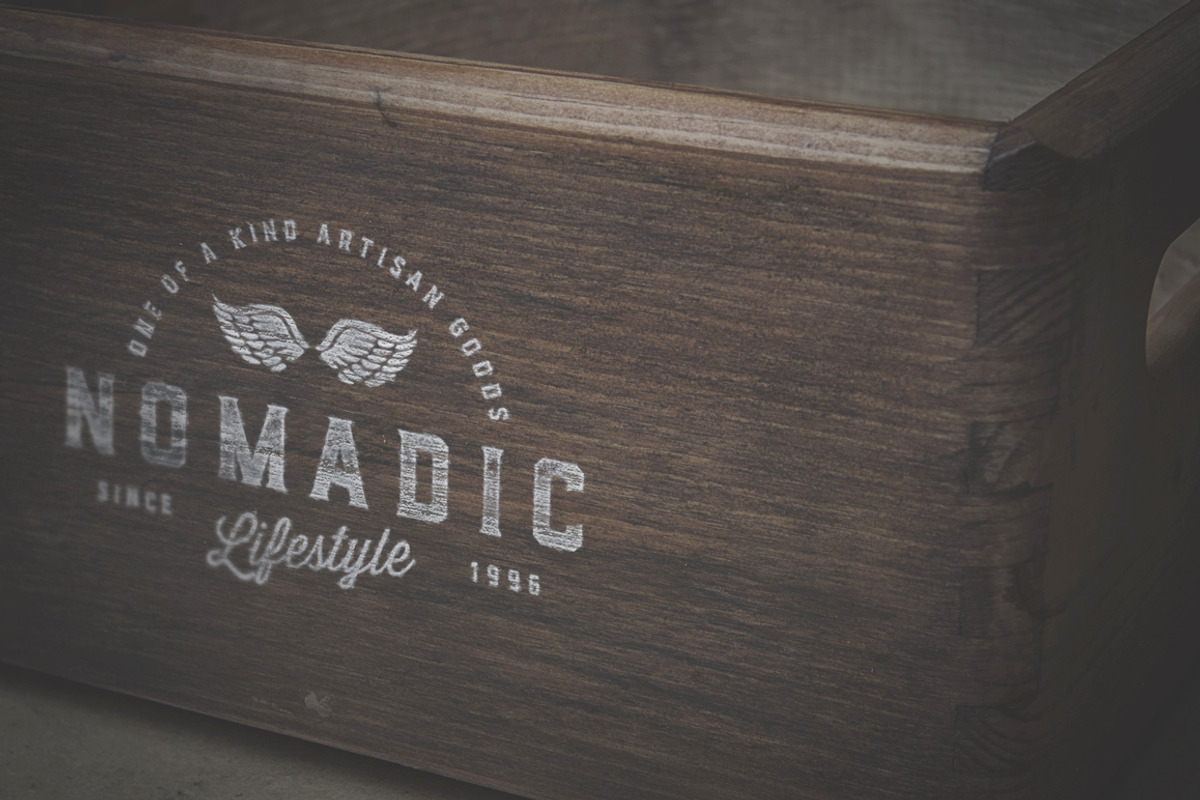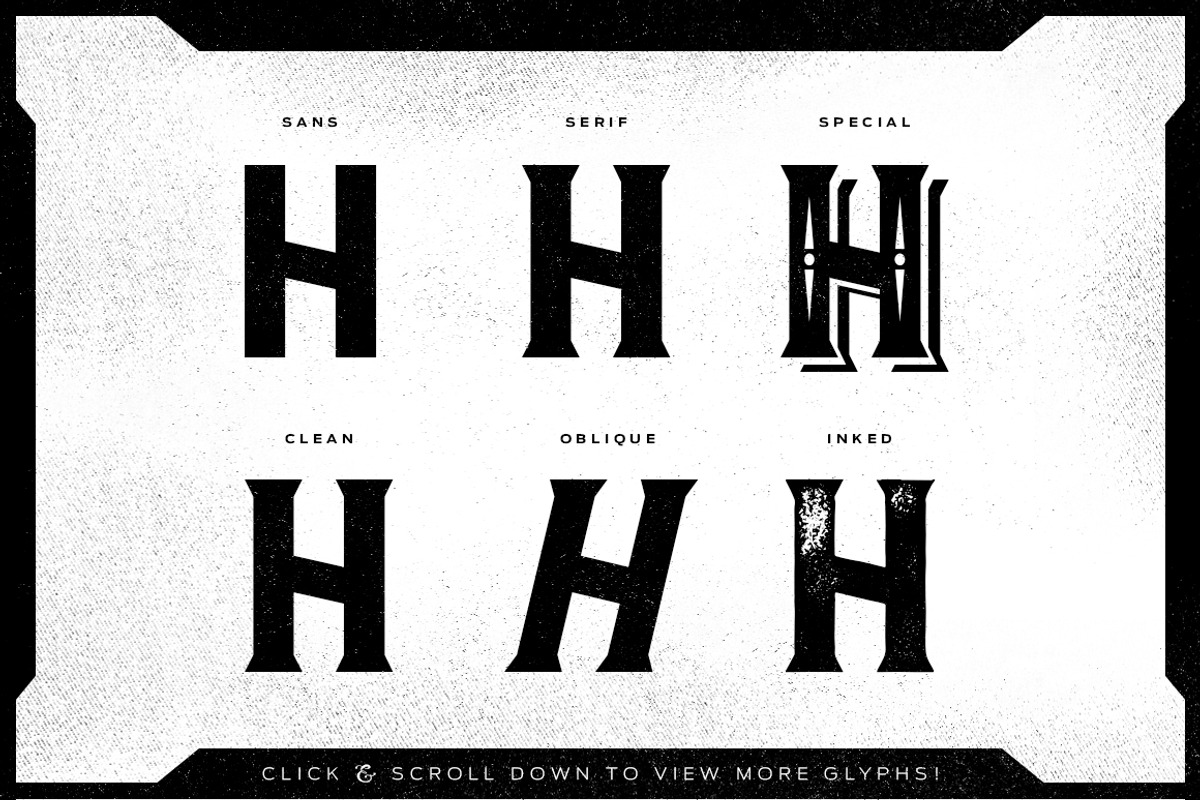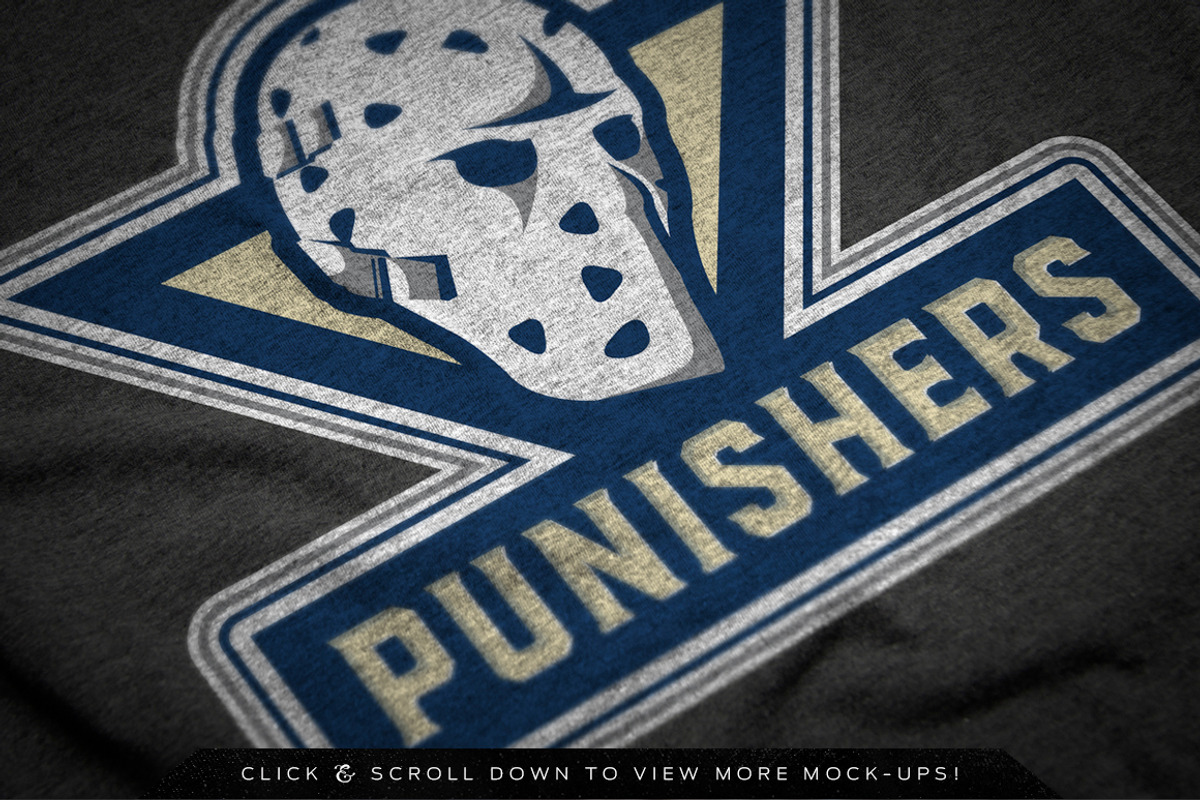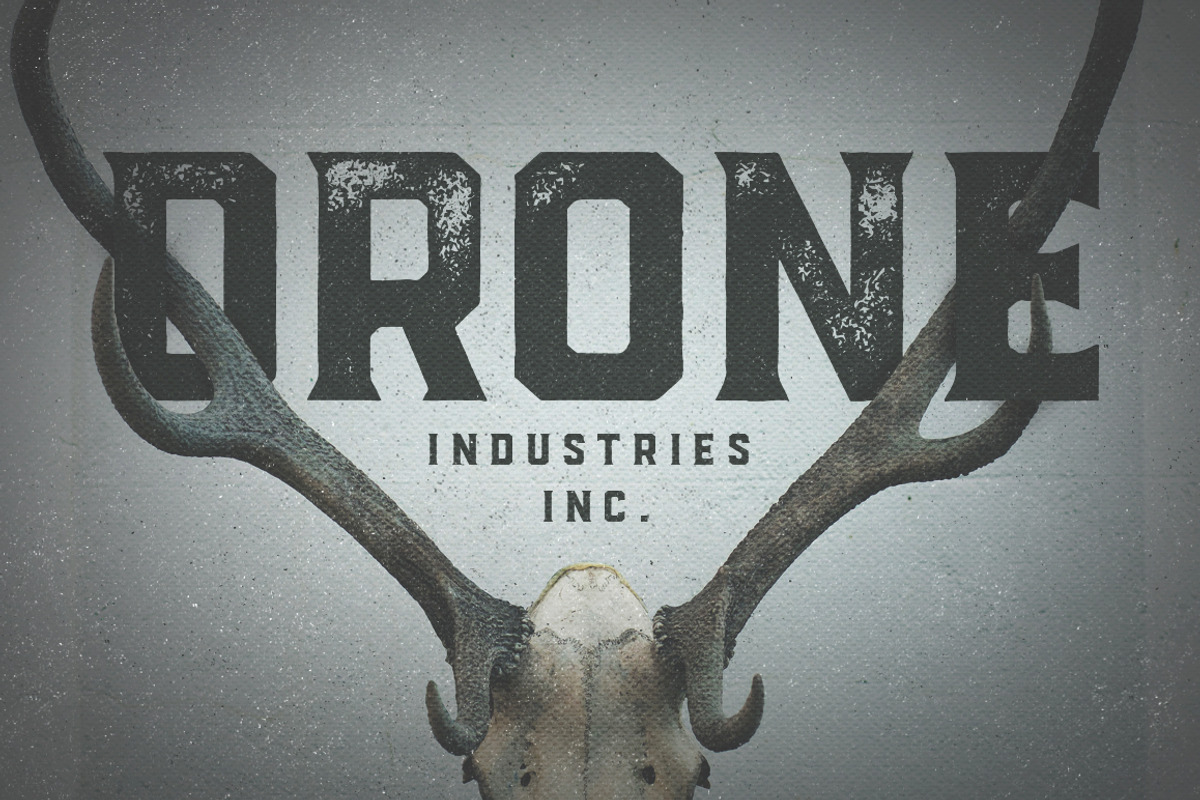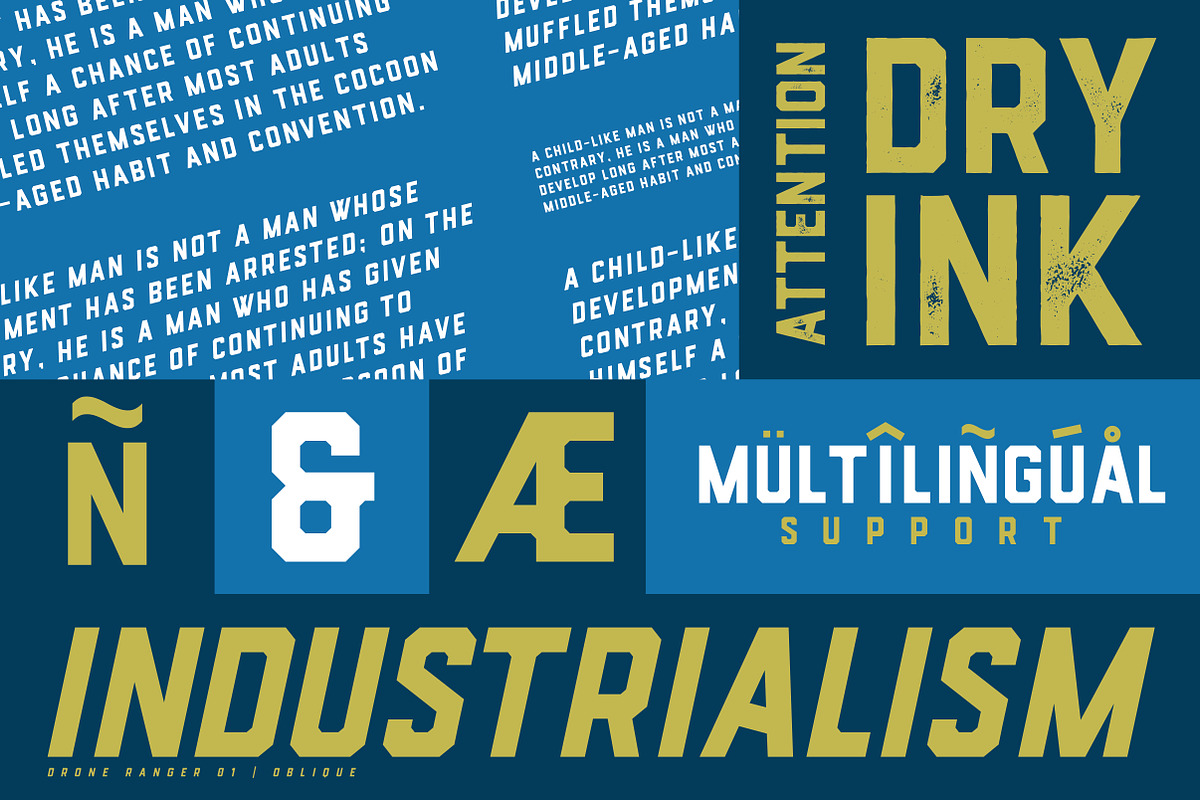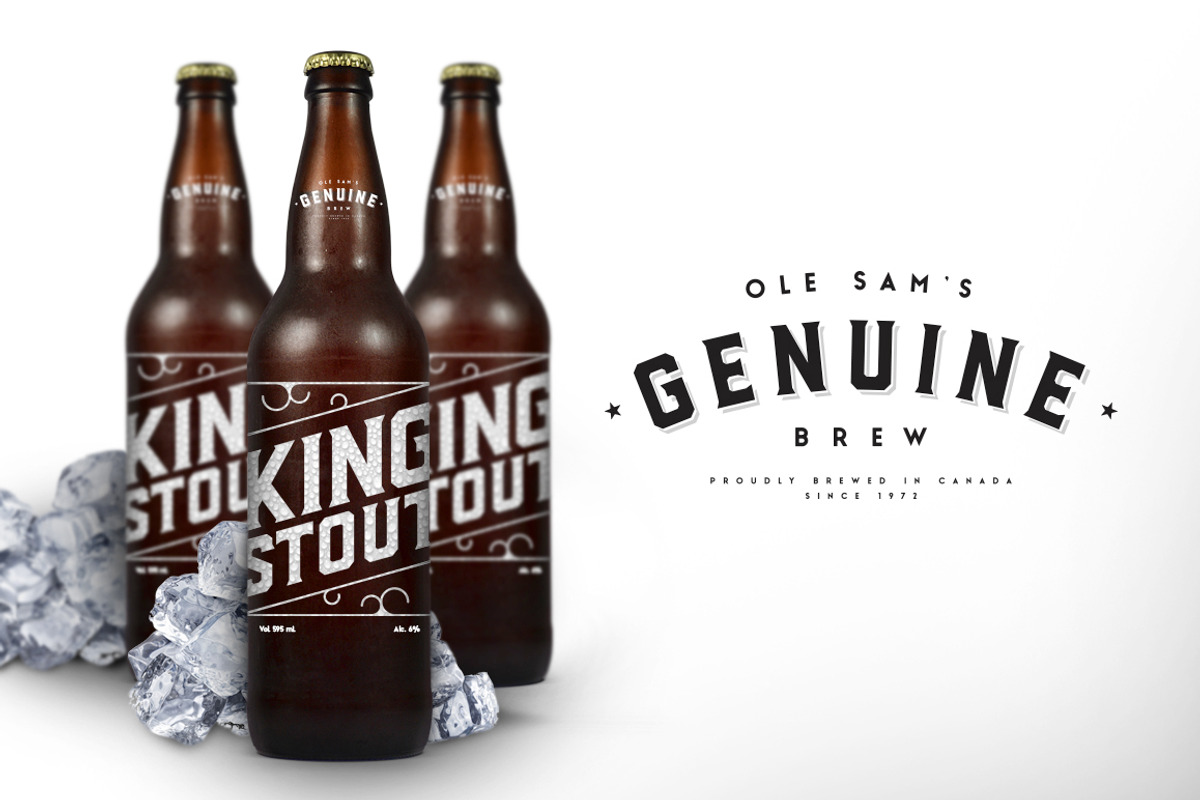
Drone Ranger Display Font
Drone Ranger Display Font by Vintage Type Company is a font selected for branding, posters, packaging, typography.
- Included in the family is a Sans version, a Serif version, and a Special Decorative version, and each of these have their own clean, oblique
Why Drone Ranger Display Font is worth a look
Drone Ranger Display Font by Vintage Type Company fits naturally into Branding, posters, packaging, typography.